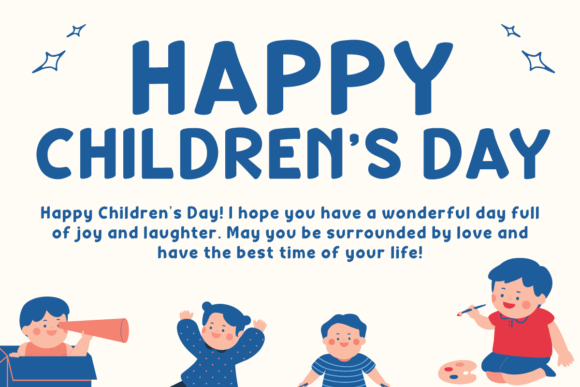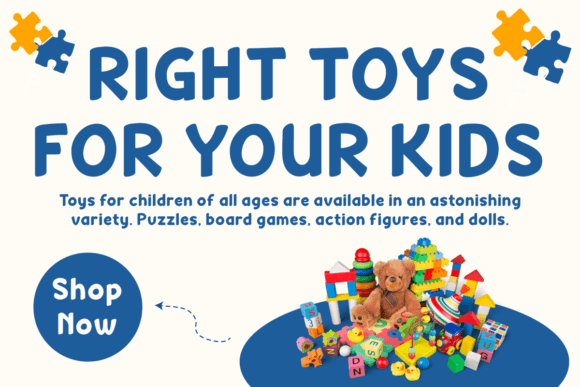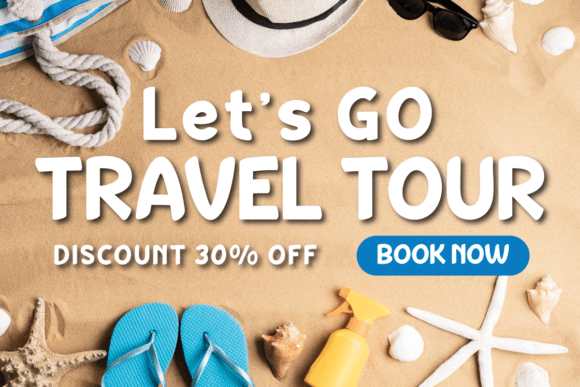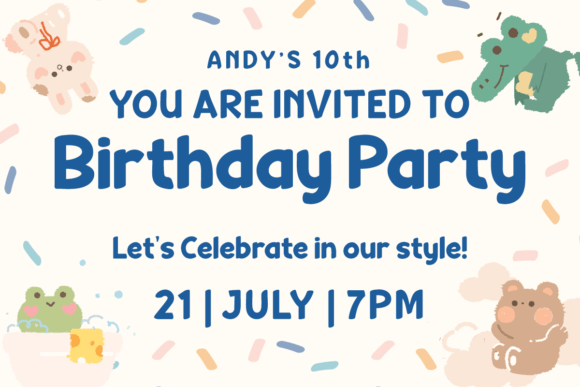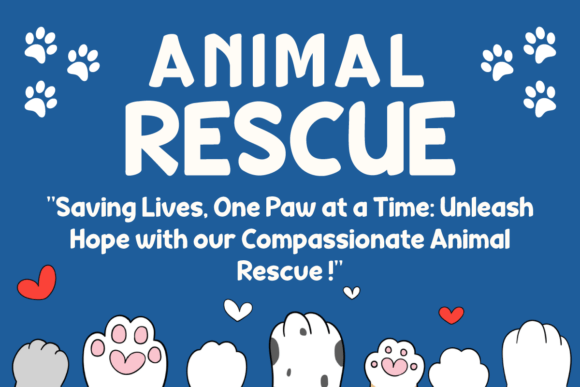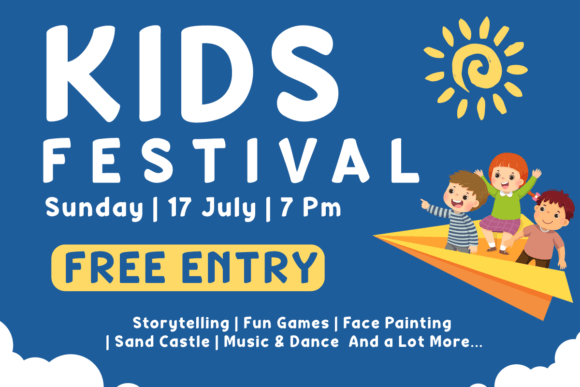
Introduction to Rekita Font
Remember the moment when you stumbled upon the perfect font for your creative project? The one that made your design pop and brought a smile to your face? For designers, that ‘aha’ moment is priceless. It’s the difference between a good design and an exceptional one. That’s exactly what Rekita Font is – a game-changer in the world of typography. With its whimsical and charming characters, this font is designed to infuse playfulness and creativity into your projects.
As a versatile design resource, Rekita Font is perfect for crafting children’s books, eye-catching posters, or engaging social media graphics. Its high-quality design and transparent background make it a valuable addition to any creative project. And the best part? It’s available for free download, making it accessible to designers of all levels.
Whether you’re a seasoned designer or just starting out, Rekita Font is sure to elevate your design game and leave a lasting impression on your audience. So, what are you waiting for? Discover the magic of Rekita Font and let your creativity run wild with playful typography today!
Key Features of Rekita Font
- High-quality design resource for creative projects, offering a unique and stylish aesthetic.
- Includes transparent background, allowing for seamless integration into various design elements.
- Designed to be scalable, with a resolution of 300 DPI, ensuring crisp and clear rendering on various devices.
- Perfect for use in digital and print media, including logos, typography, and other design elements.
Honest Review: Rekita Font
I recently had the chance to work with the Rekita Font, and I must say, it’s been a game-changer for my design projects. The font is perfect for creating a modern and sophisticated look, and it’s completely free to download.
Here are some things that work well for the Rekita Font:
- ✨ High-quality design: The font is clean, crisp, and visually appealing, making it perfect for a wide range of creative projects.
- ✨ Versatility: The Rekita Font is highly versatile and can be used in both digital and print-based designs, from logos to business cards.
- ✨ Transparent background: The font’s transparent background makes it easy to use on any background, giving you complete creative control.
- ⚠️ Limited character set: The Rekita Font only includes a basic set of characters, which may not be suitable for languages that require a more extensive character set.
- ⚠️ Not ideal for small text: The font’s size and style make it better suited for larger text, so it’s not ideal for small text or body copy.
Overall, I’m really impressed with the Rekita Font, and I would highly recommend it to anyone looking for a high-quality, free design resource. With its modern look and versatility, it’s perfect for a wide range of creative projects.
Tips for Getting the Most Out of Rekita Font
For the best results, use the Rekita Font in conjunction with high-quality images or backgrounds. This will help to create a professional and visually appealing design. Additionally, experiment with different font sizes and styles to find the perfect combination for your creative project.
The Rekita Font is ideal for any creative project that requires a unique and stylish font. Some common use cases include:
Designing business cards or brochures
Creating social media graphics or posts
Developing a brand identity or logo
Adding a touch of elegance to presentations or reports
Is the Rekita Font suitable for high-resolution designs?
Yes, the Rekita Font is designed to be high-quality and suitable for use in high-resolution designs, such as those requiring 300 DPI or higher. This ensures that the font will look crisp and clear, even when enlarged or used in large formats.